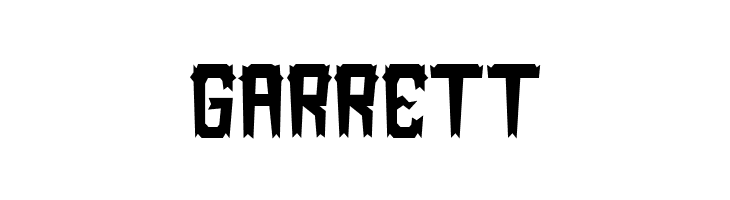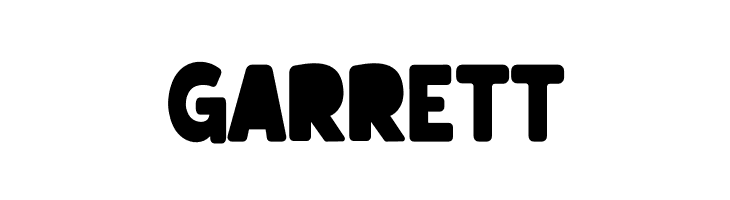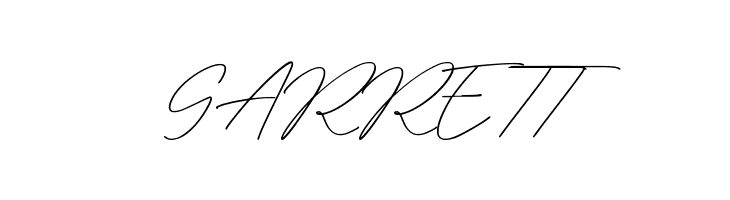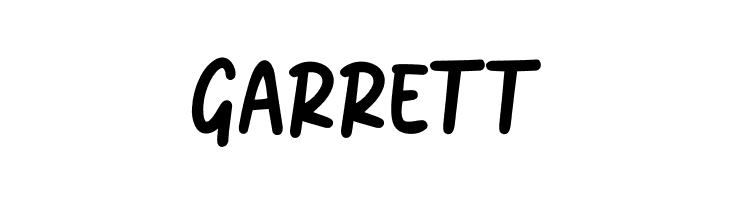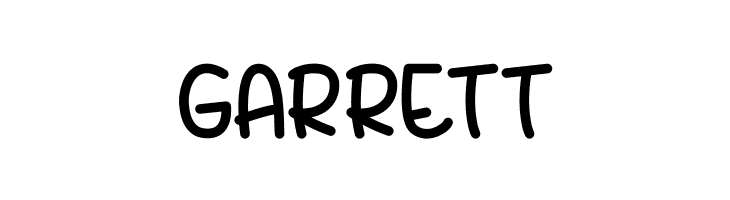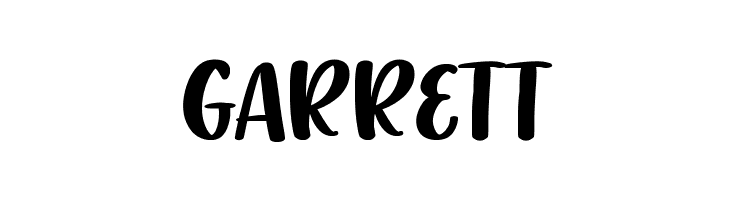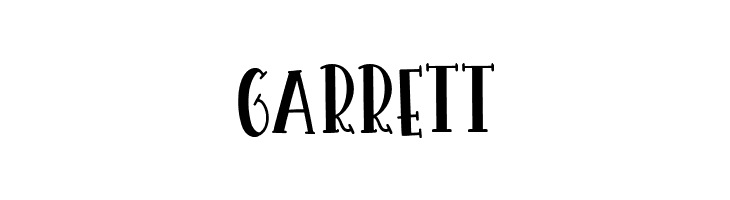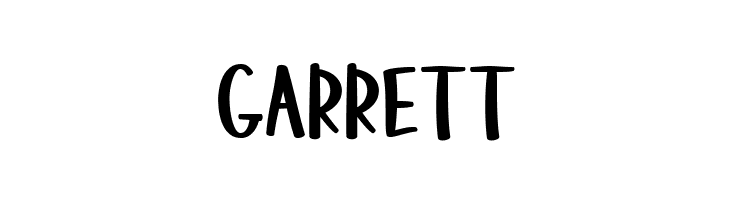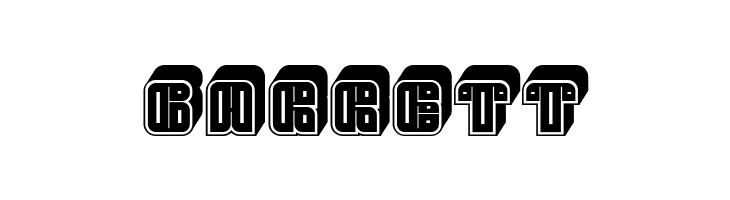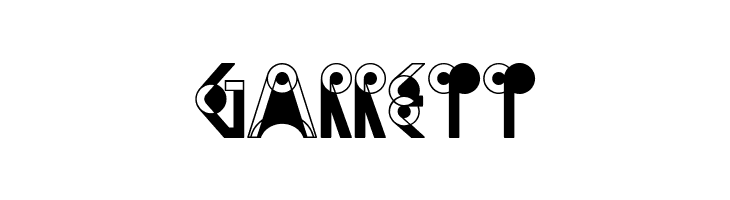
A playful and whimsical font with dynamic strokes and charming irregularities.
A playful, bold, and hand-drawn font with a lively, rounded style.
A playful, hand-drawn font with rounded, bubbly characters.
A playful, hand-drawn font with bold, rounded characters.
A playful, hand-drawn font with a friendly and whimsical style.
A playful, hand-drawn font with bold, rounded characters.
A bold, geometric, and artistic font with contrasting elements.
A graceful script font with fluid, connected strokes and a sophisticated style.
A fluid, cursive font with a natural handwriting style.
A bold, serif font with strong, angular serifs and a dynamic presence.
A bold, dramatic serif font with strong, angular serifs and a modern twist.
A classic serif font with modern elegance and medium contrast.
A graceful script font with fluid, cursive strokes and elegant character design.
An elegant script font with intricate loops and high contrast, perfect for formal and decorative uses.
A playful handwritten font with tall, narrow letters and a whimsical style.
A charming handwritten font with elegant, flowing letterforms.
A bold, angular font with sharp edges and a modern, aggressive style.
A playful handwritten font with a mix of slender uppercase and cursive lowercase letters.
A playful, childlike font with bold, rounded strokes and an informal style.
A playful, bold, handwritten-style font with a friendly and energetic appearance.
A flowing, cursive script font with elegant, connected letters.
A bold, rounded font with a playful and friendly style.
A charming, whimsical cursive script with elegant, flowing letters.
A hand-drawn, sketch-like font with overlapping lines and a playful style.
A playful, hand-drawn font with overlapping lines and a sketch-like appearance.
A playful, handwritten font with smooth curves and a friendly appearance.
( Fonts by Invasi Studio )
A bold, playful handwritten font with thick strokes and rounded edges.
( Fonts by Invasi Typework - Personal-use only. For commercial use please contact owner. )
A bold, playful handwritten font with rounded, casual letterforms.
( Fonts by Letterrendra - Personal-use only. For commercial use please contact owner. )
A lively handwritten font with dynamic strokes and a playful aesthetic.
( Fonts by AminMario - Amin Mario - Personal-use only. For commercial use please contact owner. )
A bold, dynamic brush script font with expressive strokes.
( Fonts by Jetsmax Studio - Khairil Anwar - Personal-use only. For commercial use please contact owner. )
A playful, hand-drawn font with a whimsical and friendly style.
A whimsical, hand-drawn font with a playful and organic style.
A dynamic and energetic script font with fluid, angular strokes.
An ornate, calligraphy-inspired font with bold, decorative elements.
A bold, geometric font with intricate patterns and strong outlines.